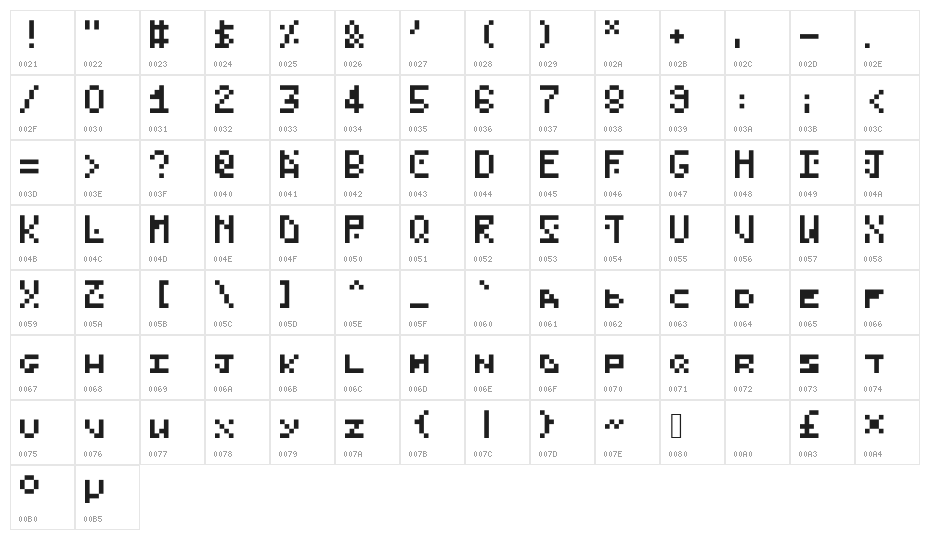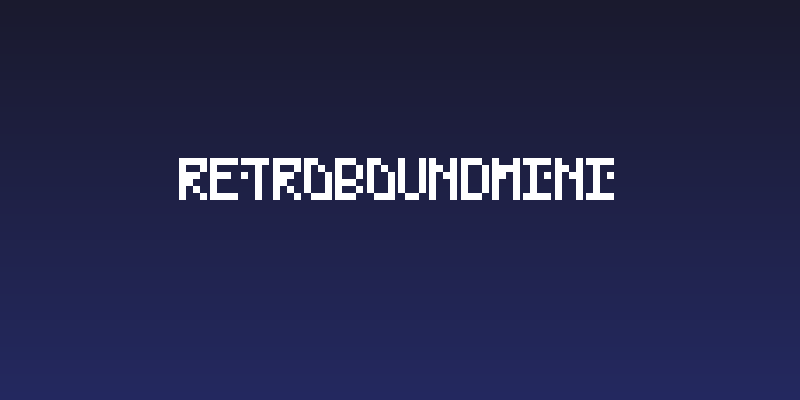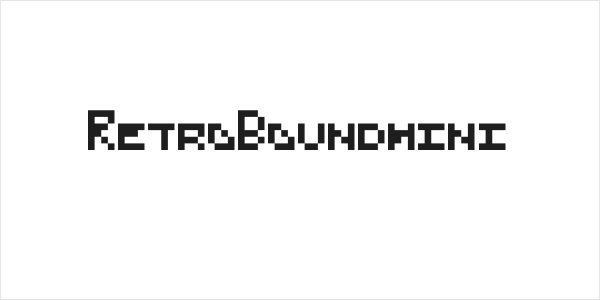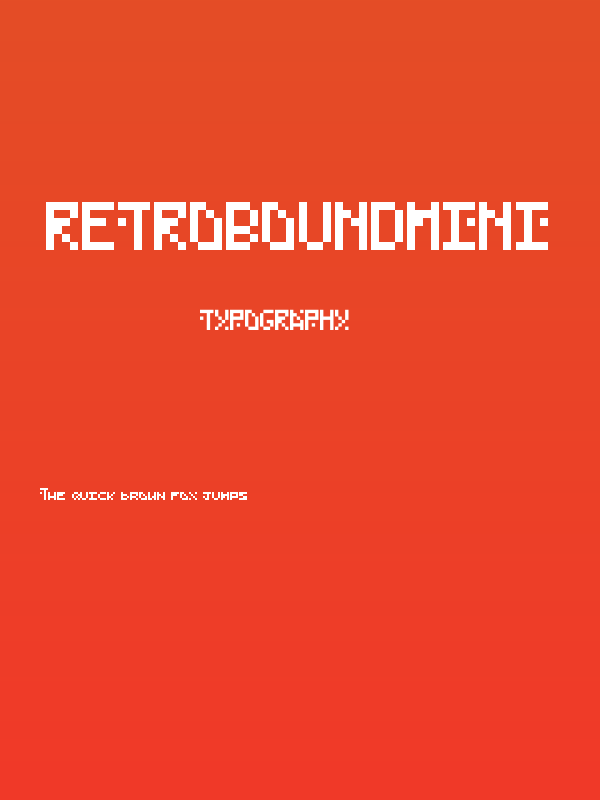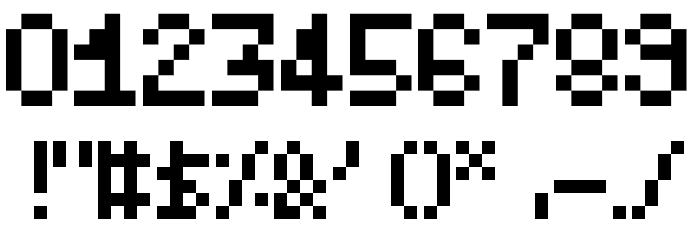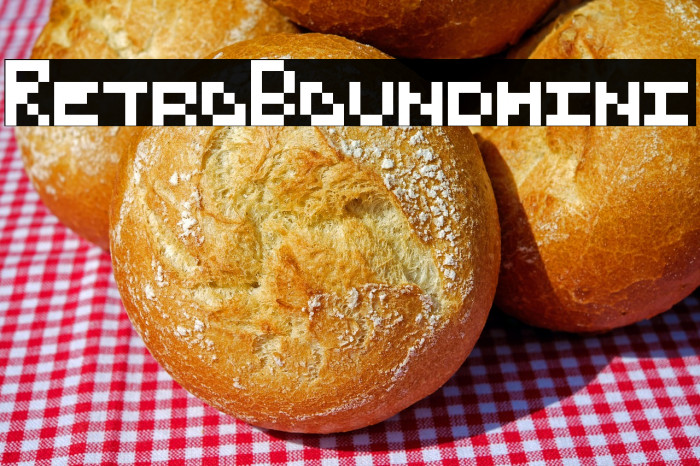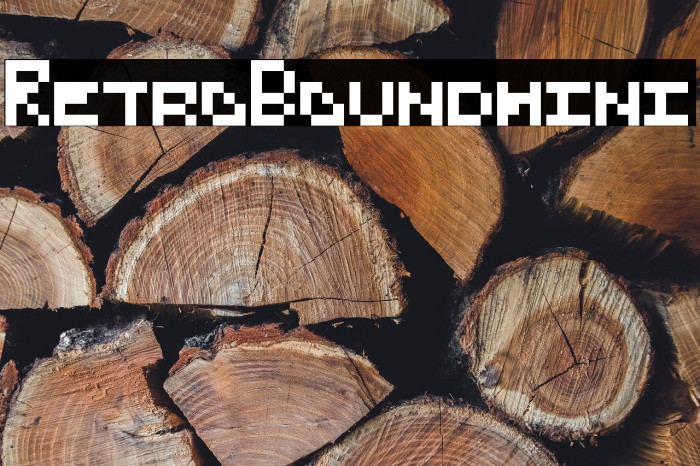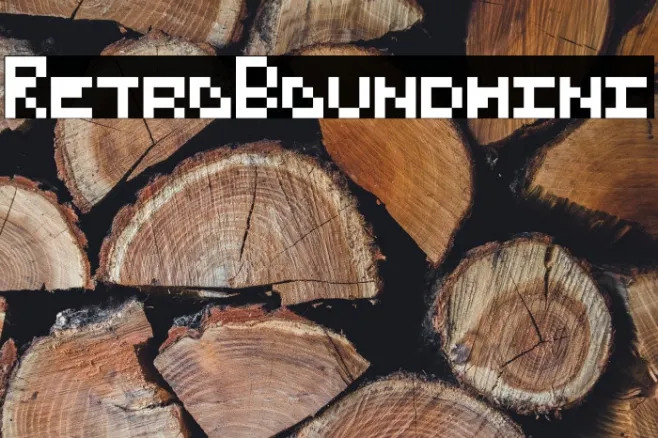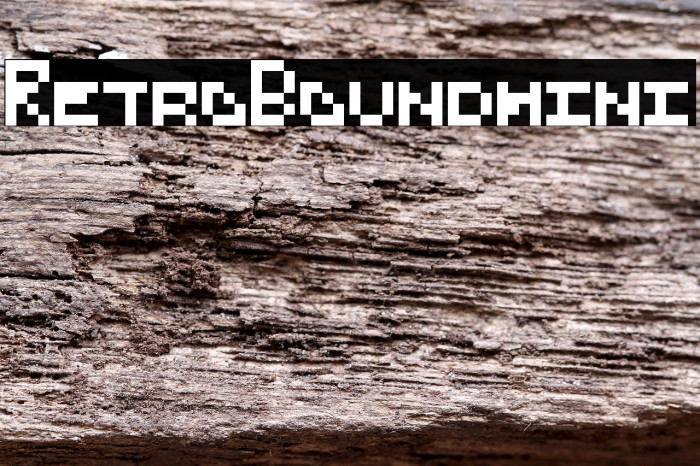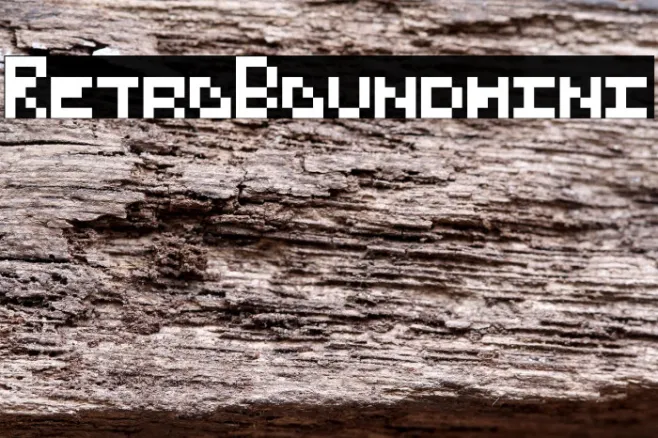
RetroBoundmini Font
RetroBoundmini Description
This font exhibits a distinct pixelated style reminiscent of early digital and video game typography. Each character is composed of blocky, square shapes that give it a retro, 8-bit appearance. The uppercase and lowercase letters maintain a consistent height, enhancing the uniformity and readability of the text. Numbers and special characters follow the same design principles, ensuring a cohesive look across all elements. The font's geometric structure and lack of curves contribute to its vintage digital aesthetic, making it ideal for projects that aim to evoke nostalgia or a tech-inspired theme.
| Use Case | Logos, Headlines, Digital Art |
| Proposed Projects | Ideal for video game design, retro-themed posters, digital art, and tech-related branding. |